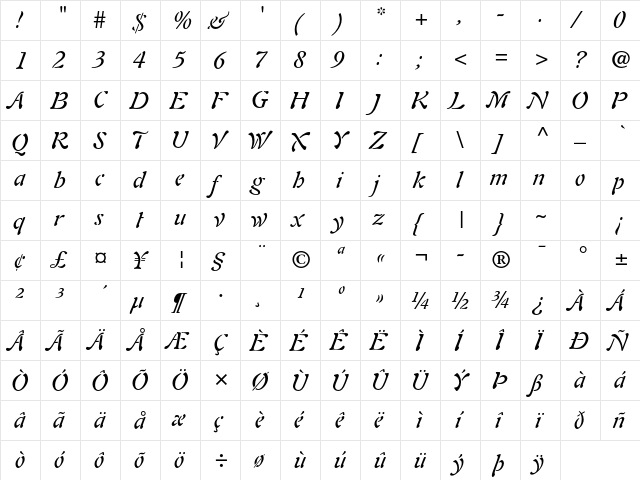
Auriol LT Std Italic Font Preview
| Designer | Georges Auriol |
Design Context for Auriol LT Std Typeface
Auriol LT Std takes a measured approach to typography — its balanced proportions and neutral character make it a reliable workhorse for both digital and print work. The slanted form adds forward momentum and visual energy. The delicate stroke weight brings airiness and refinement to layouts.
Pro Tip: Try Auriol LT Std for annotation and caption copy alongside an upright companion — the contrast in angle creates a dynamic but ordered typographic system.